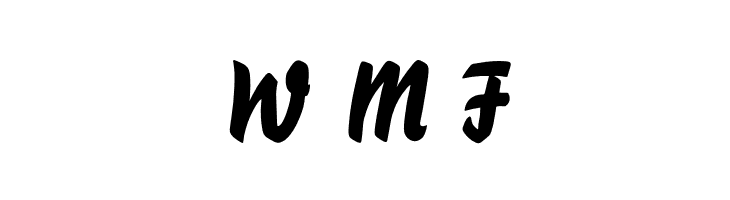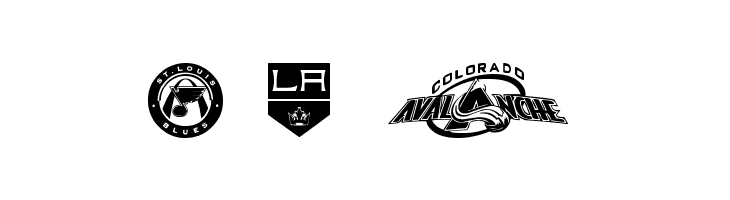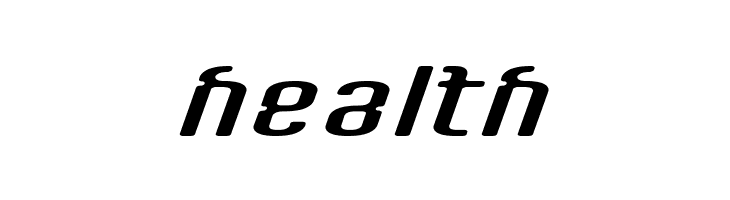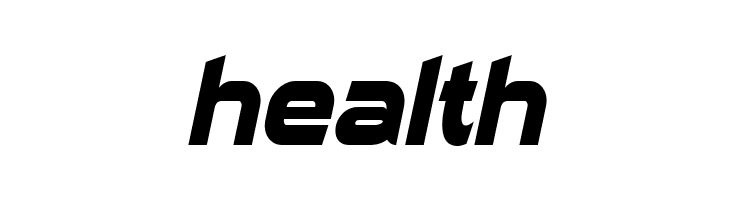
A bold, 3D italic font with outlined characters for a dynamic and playful look.
A bold, italic font with geometric shapes and a dynamic, modern style.
A bold, italic, and condensed font with a modern and dynamic style.
A bold, heavy italic font with a dynamic and energetic style.
A bold, italic, and condensed font with a modern and dynamic style.
A bold, italicized font with a dynamic, wind-swept appearance.
A bold, playful font with rounded, dynamic characters.
A modern, italicized font with sleek, consistent strokes and a dynamic appearance.
A bold, italic font with a dynamic and modern style.
A bold, italic font with a modern and dynamic style.
A bold, rounded, and slightly slanted font with a playful and dynamic style.
A bold, italicized font with a dynamic and energetic style.
A bold, playful font with irregular, dynamic letterforms.
A bold, italicized font with strong, angular lines and a dynamic slant.
A bold, italic font with tight spacing and a modern, dynamic style.
A bold, dynamic script font with fluid, cursive letterforms.
A bold, outlined font with a sporty, dynamic style.
A bold, italic font with strong, dynamic strokes and a modern, assertive style.
A bold, italicized font with a dynamic and modern style.
A bold, italic font with a dynamic, angular style.
A modern, condensed italic font with uniform stroke thickness and dynamic slant.
A modern, italicized font with a sleek, dynamic design.
A bold, outlined font with a playful and dynamic style.
A bold, italic, and geometric font with a dynamic and energetic style.
A bold, condensed, and italicized font with a modern, dynamic style.
A sleek, italic, and condensed font with a modern and dynamic style.
A bold, italicized font with a dynamic striped pattern and high contrast.
A bold, condensed, and italicized font with a dynamic and energetic style.